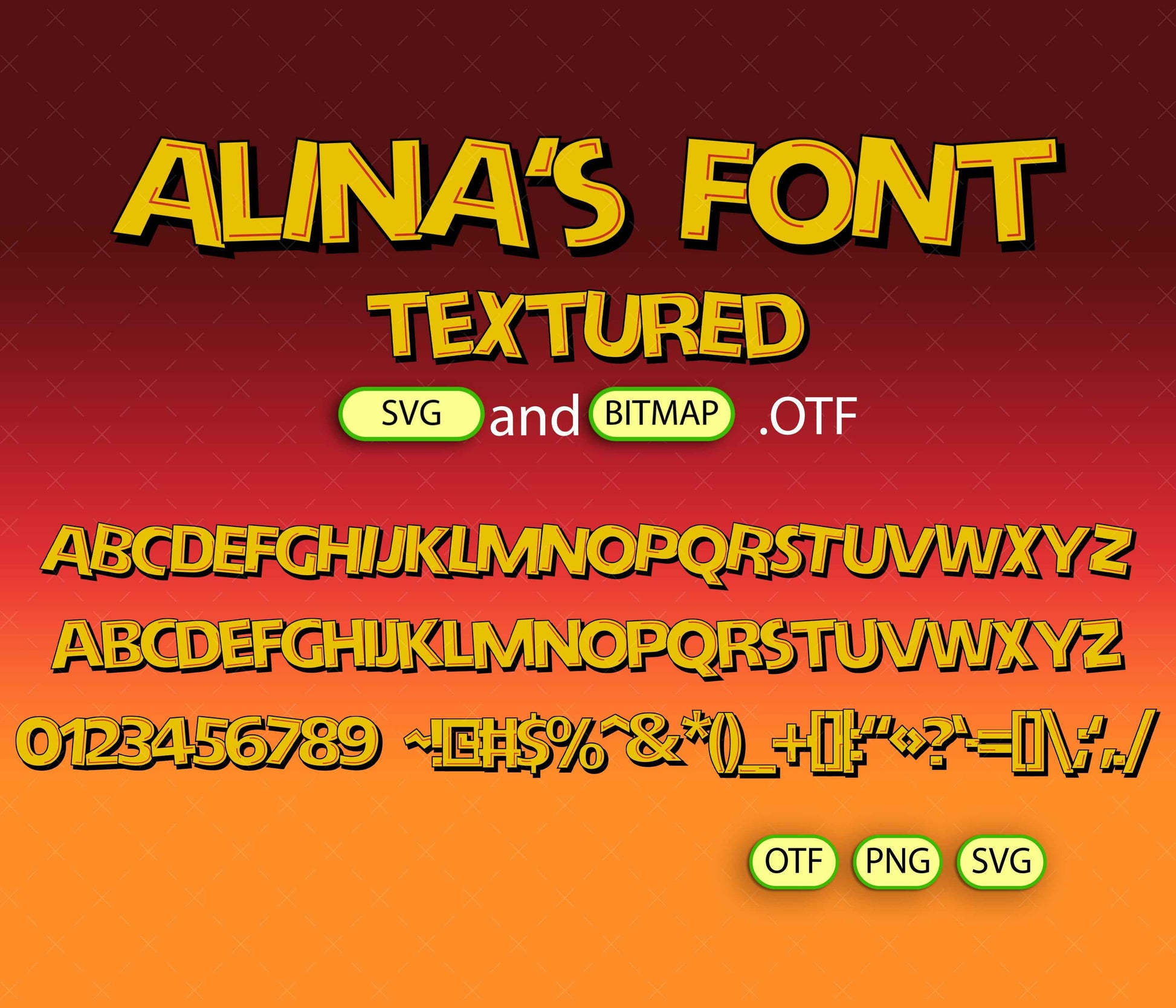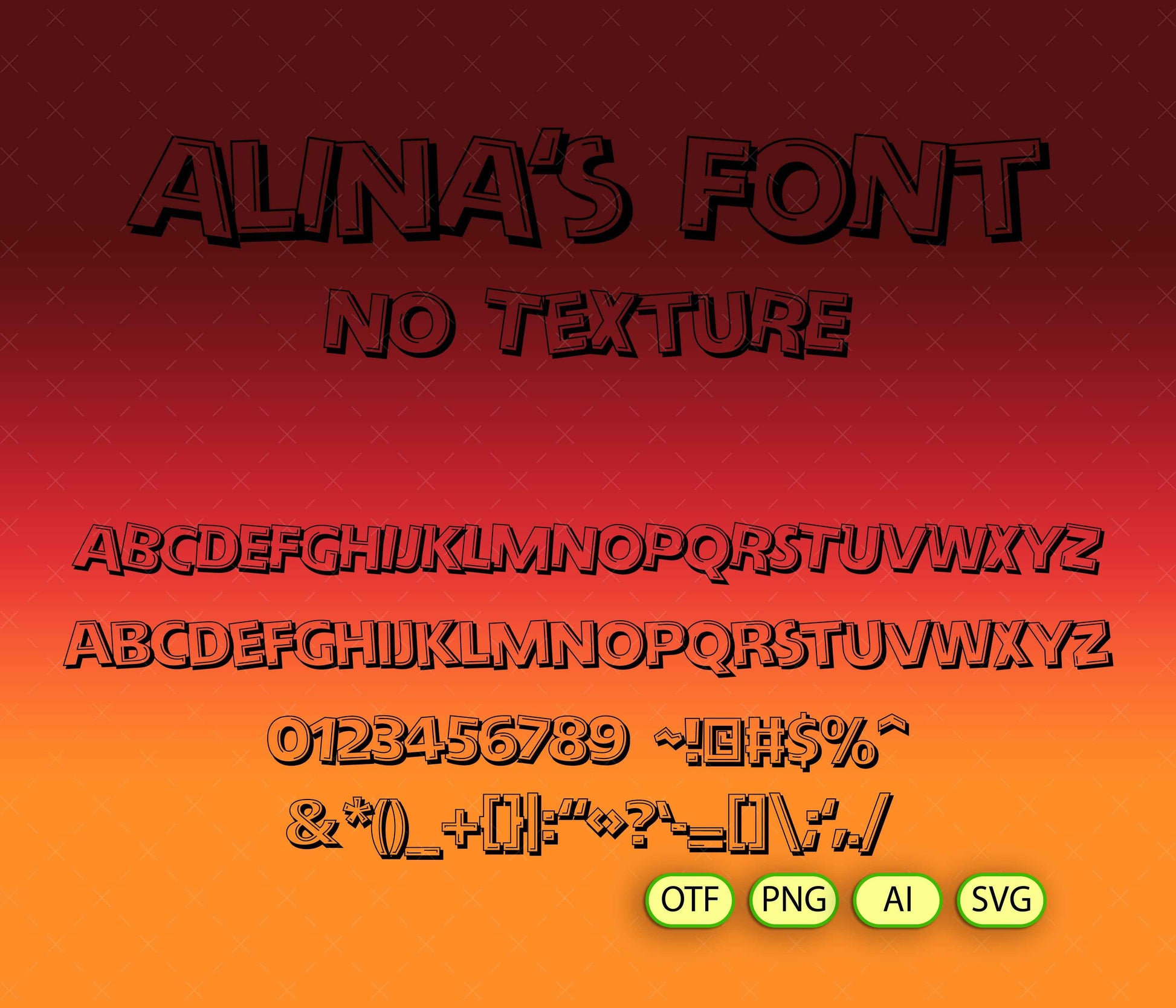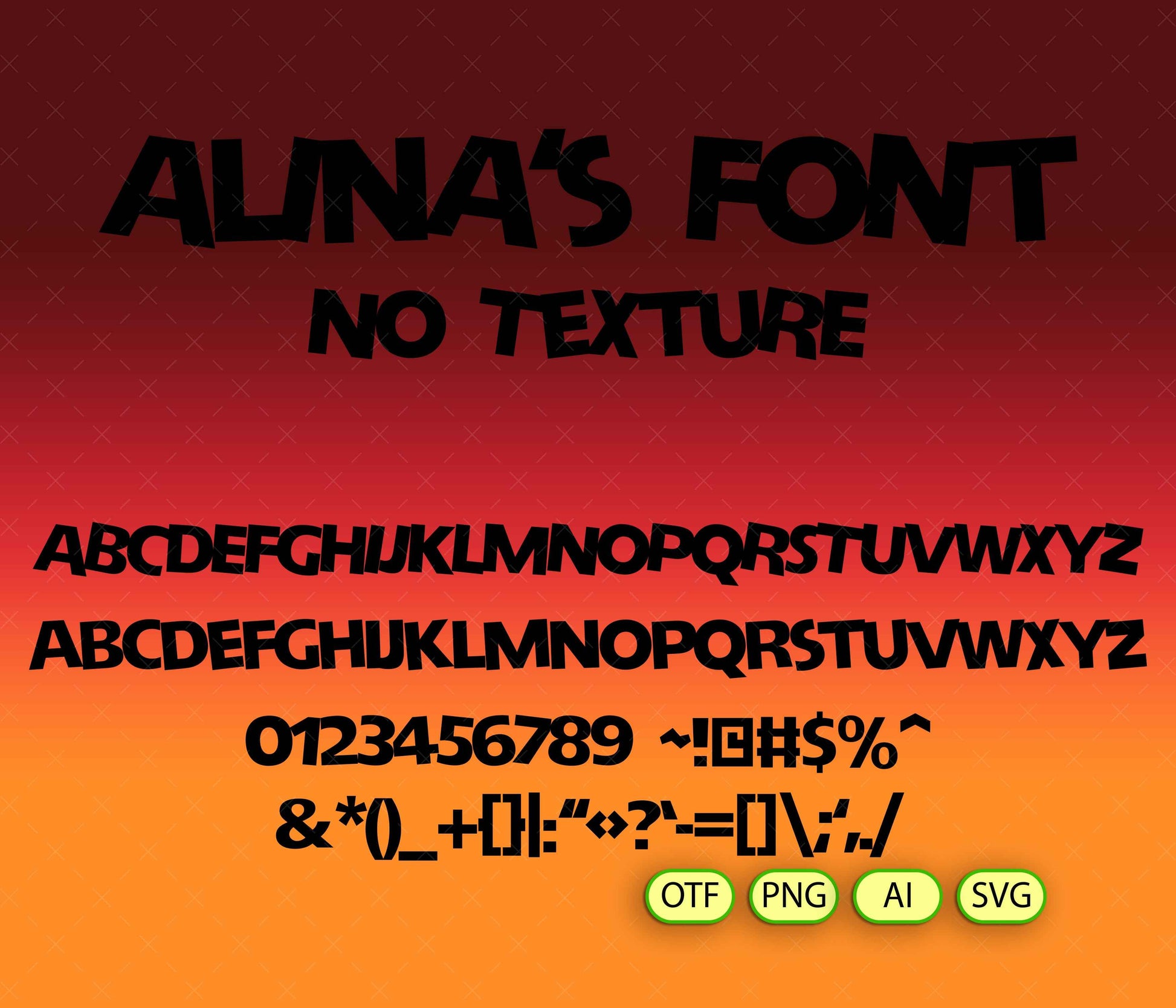
Toon Time Font Textured
Toon Time Font Rocks
Let's dive back into the loony, laugh-packed world with this all-encompassing Toon Time font, drawing inspiration from those classic cartoon title screens. This isn't just any font; it's a playful tribute to the legendary antics of beloved animated characters. And guess what? It's not just about uppercase and lowercase letters; we've got numbers and special characters in the mix too, making it a complete package for all your creative escapades. Think of those iconic cartoon title screens. Now imagine that kind of bold, fun vibe in a font. It's perfect for anyone who loves the classic cartoon style or just wants to add a bit of animated flair to their work.